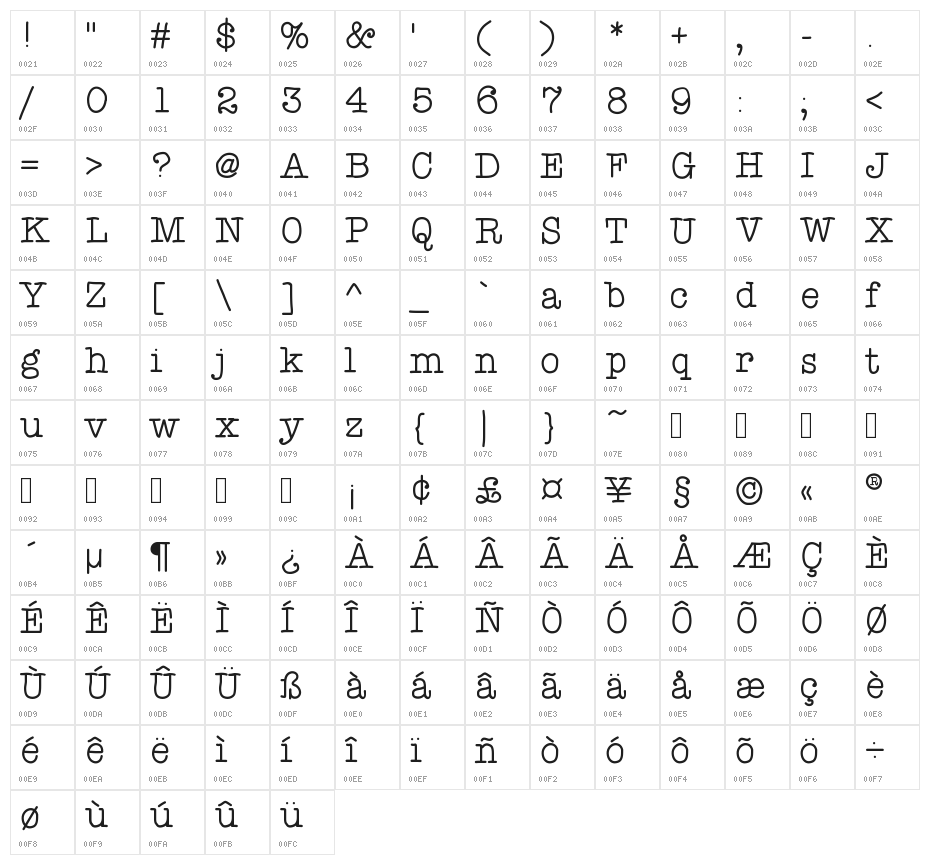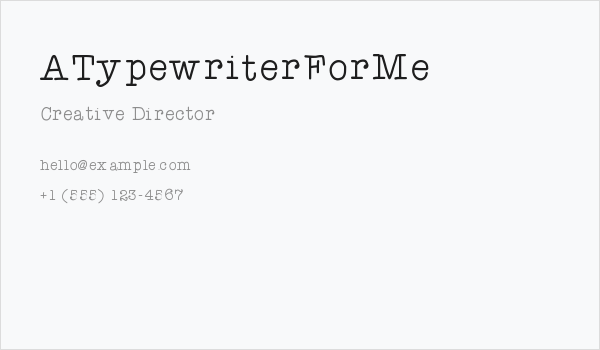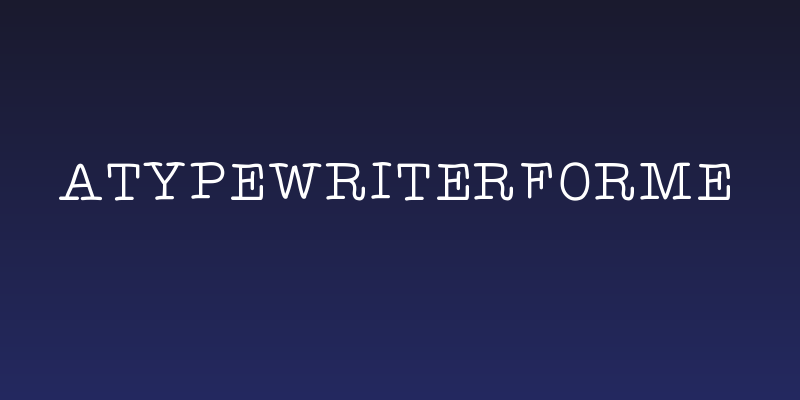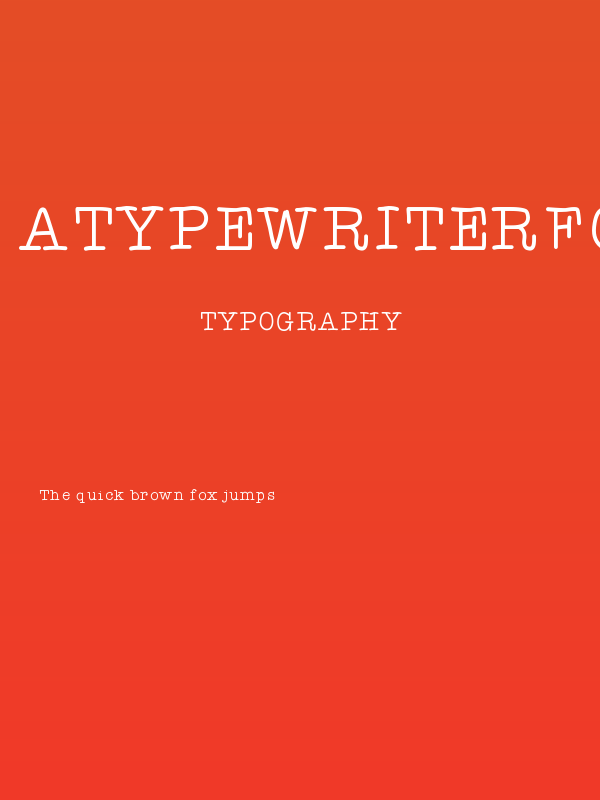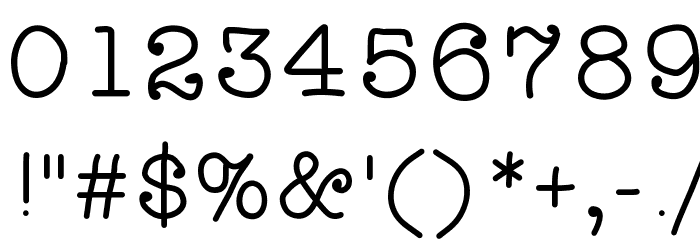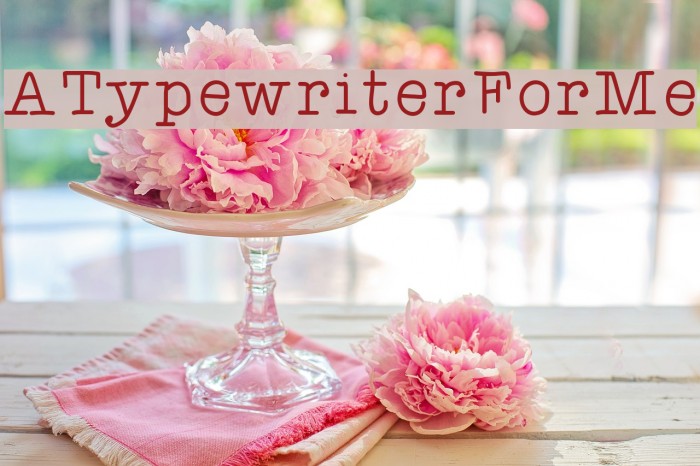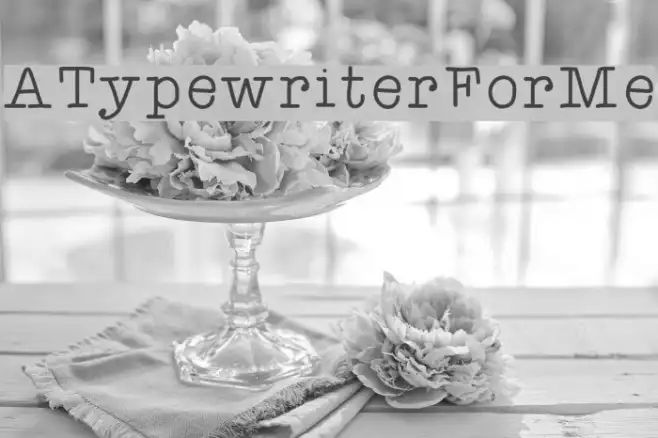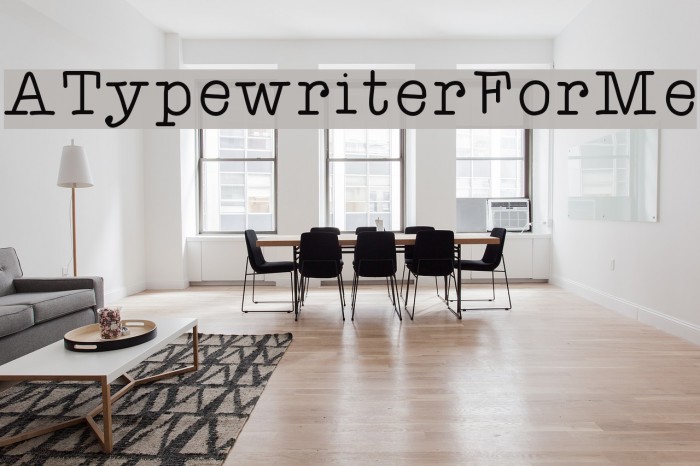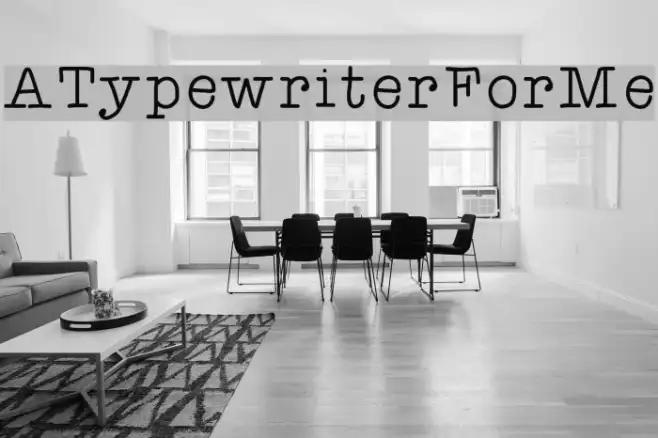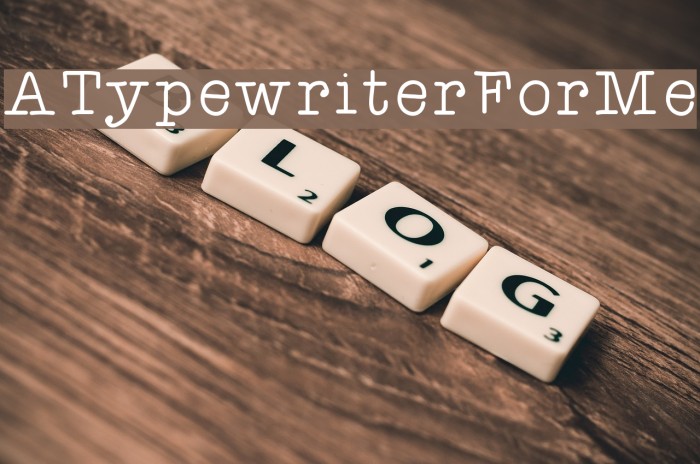
ATypewriterForMe Font
ATypewriterForMe Description
This font embodies the classic typewriter aesthetic with its monospaced characters and distinct, mechanical appearance. Each letter is evenly spaced, providing a uniform and orderly look. The characters have a slightly rounded, vintage feel, reminiscent of traditional typewriter output, with subtle variations in stroke thickness that add to its charm. The uppercase and lowercase letters maintain a consistent style, while the numerals and special characters are clear and easily distinguishable. This font is ideal for projects that require a retro or nostalgic touch, offering a perfect blend of readability and character.
| Proposed Projects | Ideal for retro-themed designs, typewriter simulations, coding displays, and creative writing projects. |